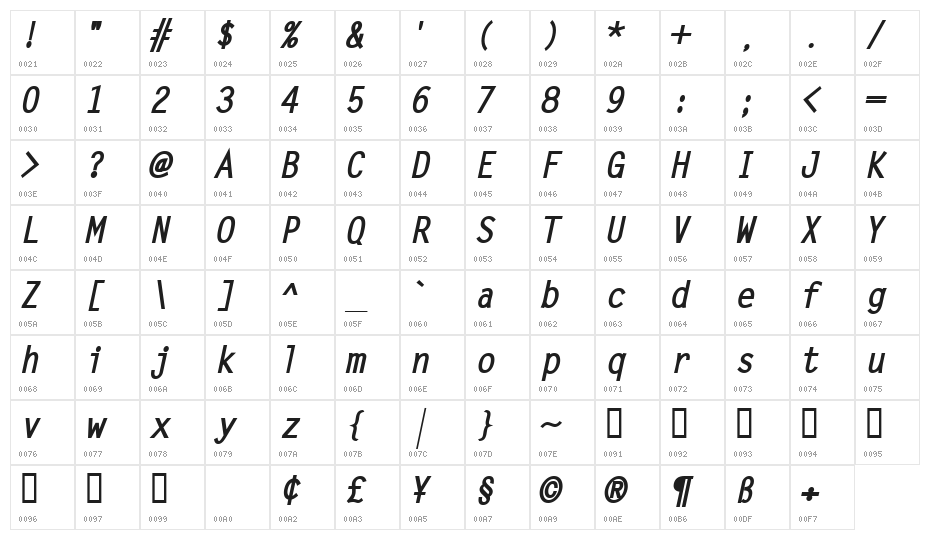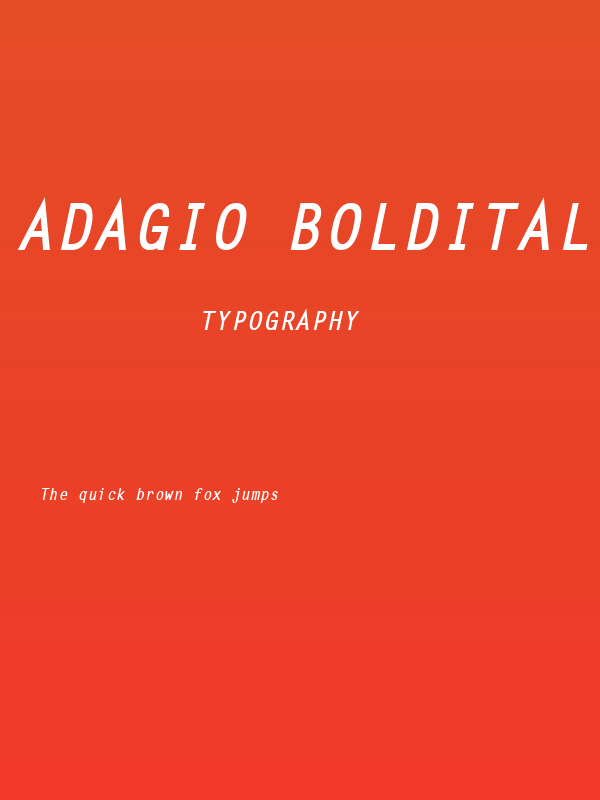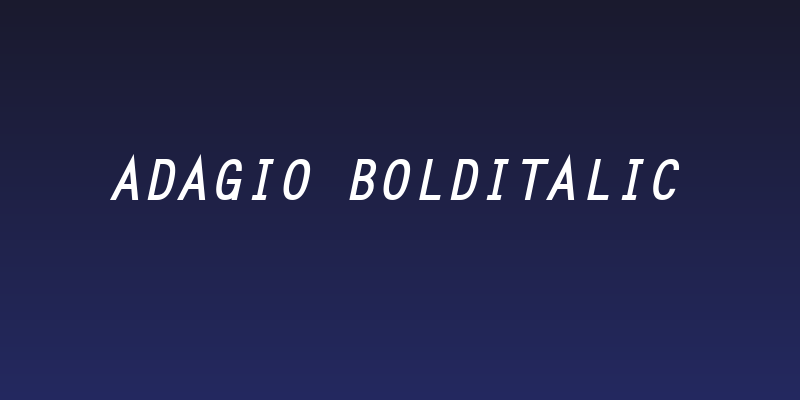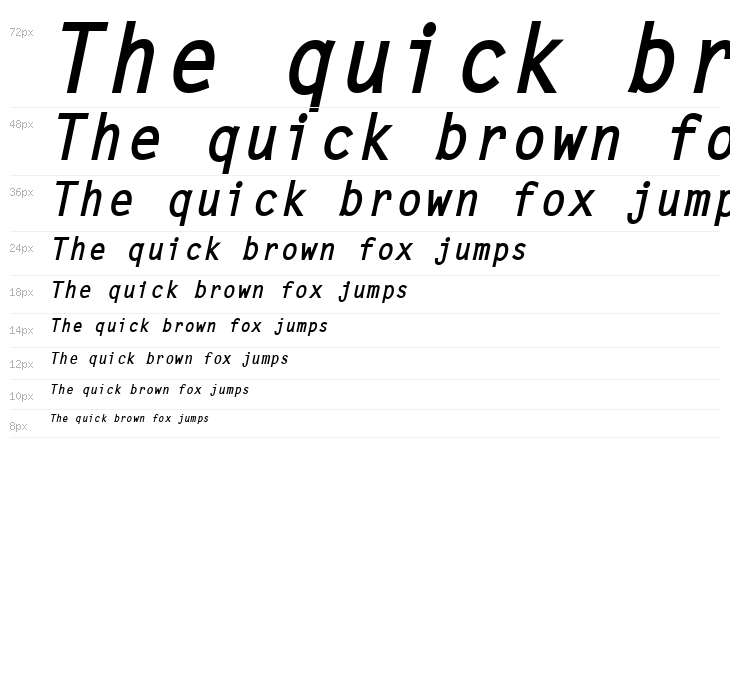
Adagio BoldItalic Font
Adagio BoldItalic Description
This font exhibits a modern and sleek design with a distinct italic slant, enhancing its dynamic appearance. The characters are bold, providing a strong presence while maintaining readability. The strokes are consistent, with medium contrast that adds to its legibility without overwhelming the viewer. The spacing between characters is normal, ensuring clarity and ease of reading. This style is versatile, suitable for various applications where a contemporary and assertive look is desired.
Use CaseHeadlines, Logos, Branding
Proposed ProjectsIdeal for branding, advertising, and editorial design where a strong and modern impression is needed.